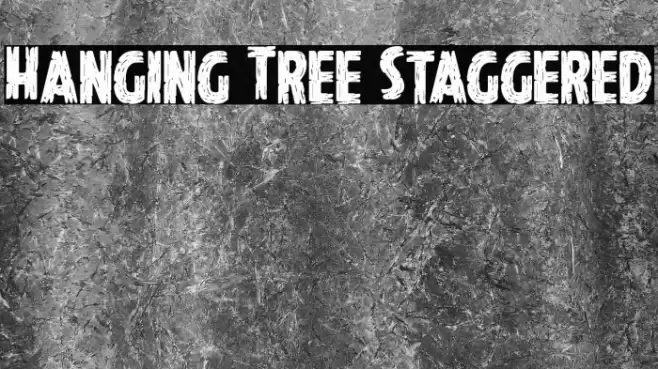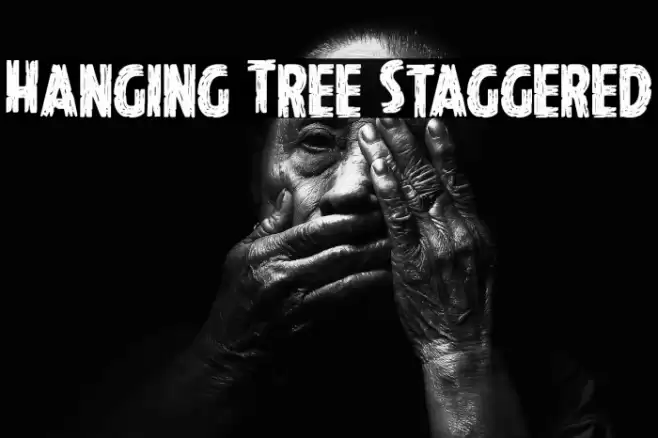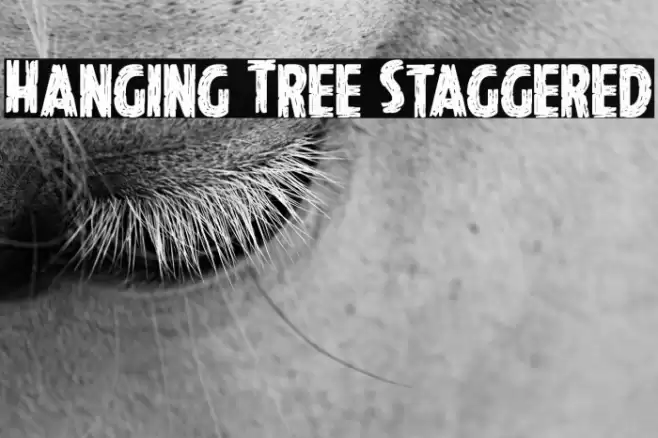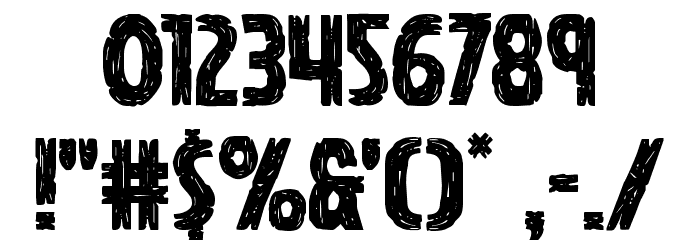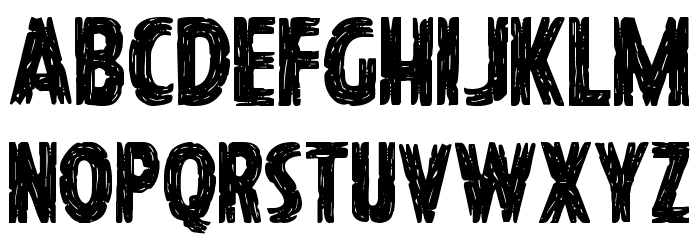
Hanging Tree Staggered Font
Hanging Tree Staggered Description
This font features a bold, distressed style with a hand-drawn appearance, characterized by rough, uneven edges and a textured look reminiscent of wood grain or brush strokes. The uppercase and lowercase letters maintain a consistent weight, giving the font a cohesive and impactful presence. The numerals and special characters follow the same design, ensuring uniformity across all glyphs. This font's rugged and organic aesthetic makes it stand out, ideal for projects that require a strong, eye-catching display.
A bold, distressed font with a hand-drawn, textured appearance from Uncategorized fonts.
- Proposed Projects: Ideal for posters, album covers, branding for outdoor or rustic-themed products, and any project needing a bold, artistic touch.